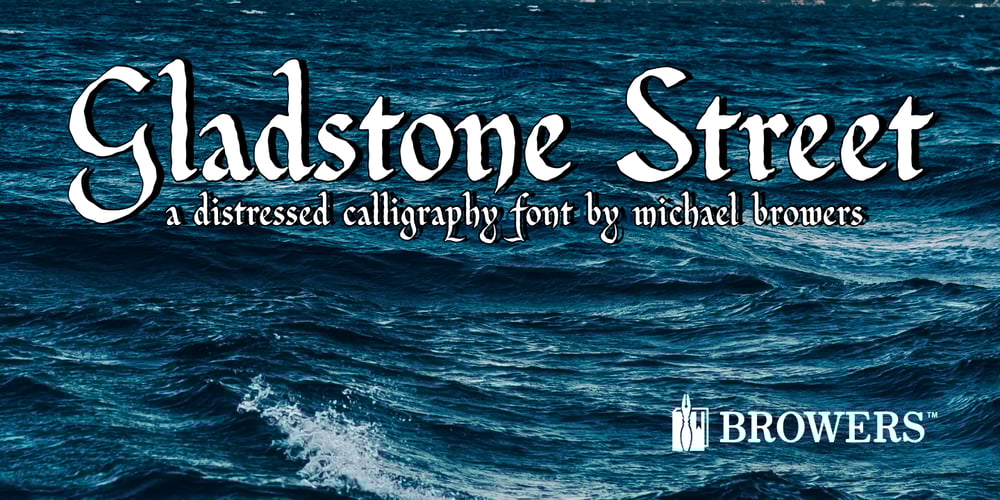
Gladstone Street Font Family was designed by Michael Jason Browers and published by Michael Browers. Gladstone Street contains 1 styles and family package options. Gladstone Street is a handmade, script font featuring subtly distressed letterforms designed to emulate the look and feel of letterpress printed type.